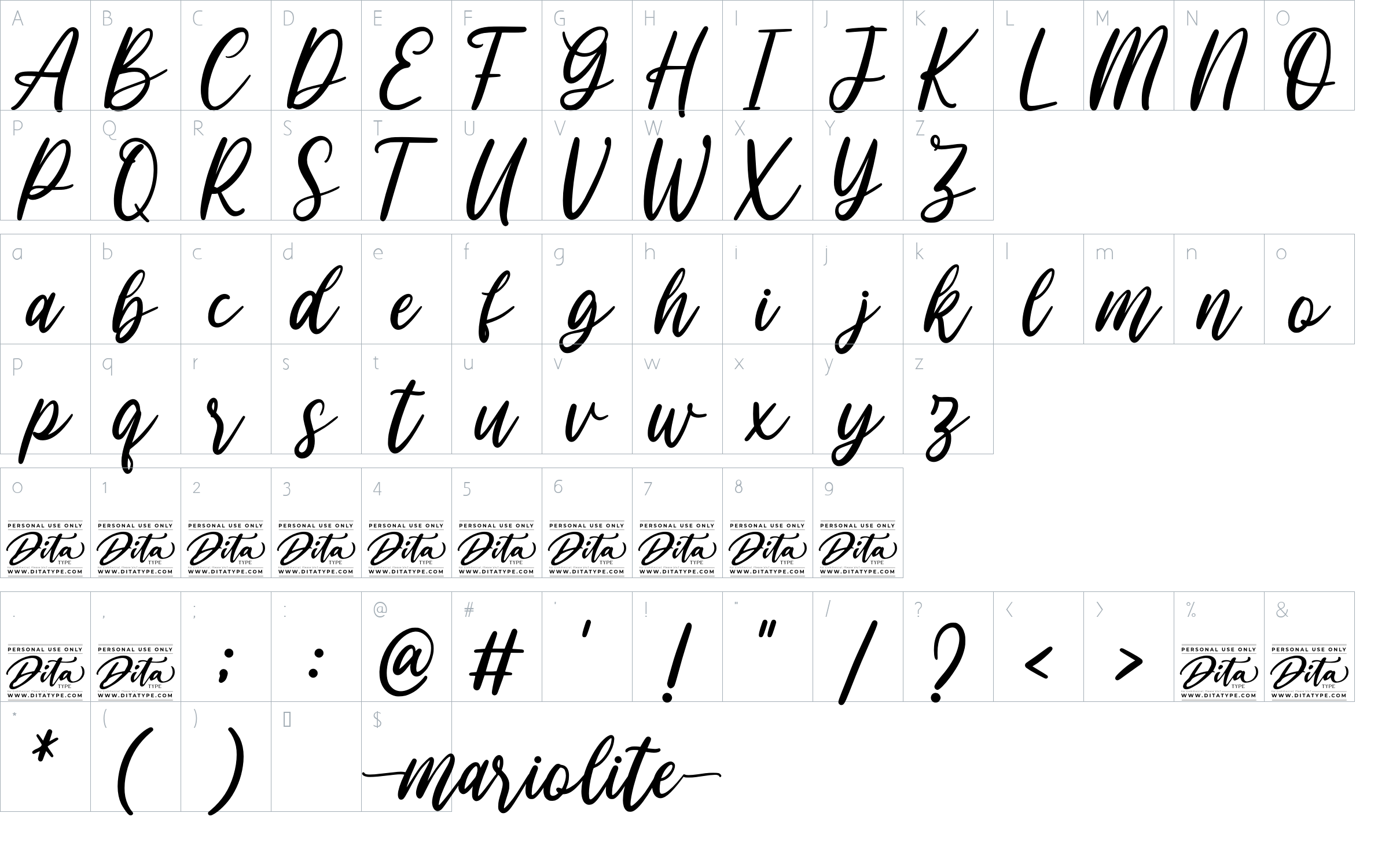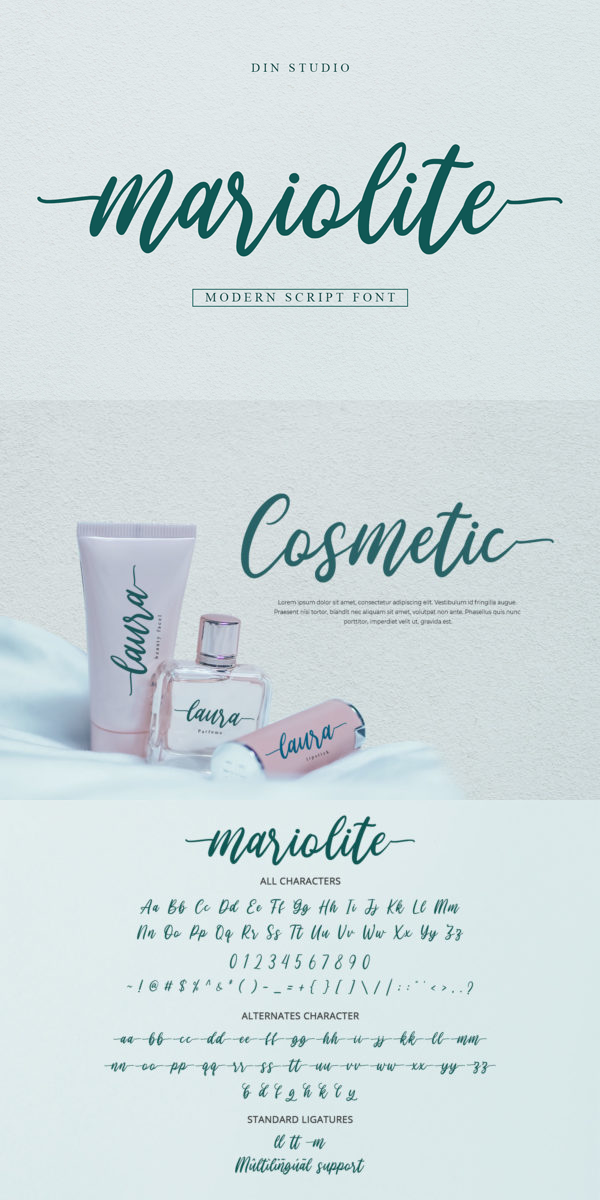
Mariolite Font
About Mariolite
Mariolite is a modern handwritten font. With a classy and natural handwritten style, it brings a classy and chic typeface. Mariolite is best used for weddings, branding, logotype, and quotes.
– Beautiful Ligatures
– Alternates